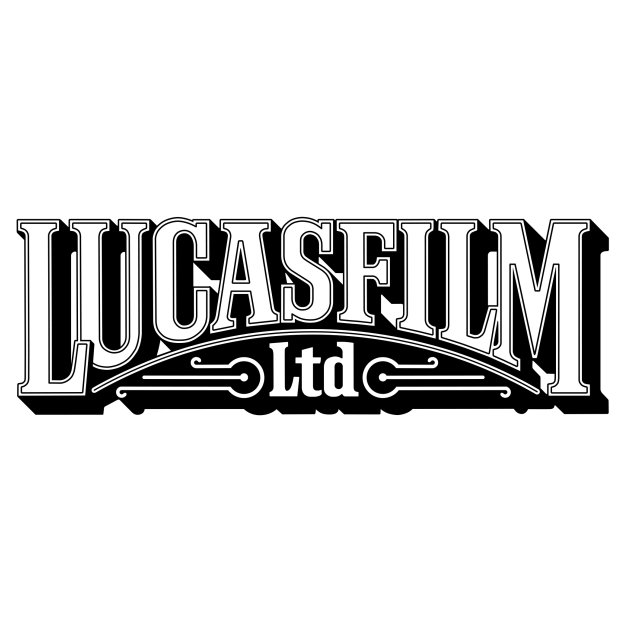
Lucasfilm Logo Font
EntertainmentLucasfilm is an American film and television production company founded by George Lucas in 1971. It is best known for producing the Star Wars and Indiana Jones film franchises.
The Lucasfilm logo features the BT Clarendon Bold Condensed font. The slab serif is a recreation of the classical Clarendon form by Edouard Hoffmann and Hermann Eidenbenz at Haas.